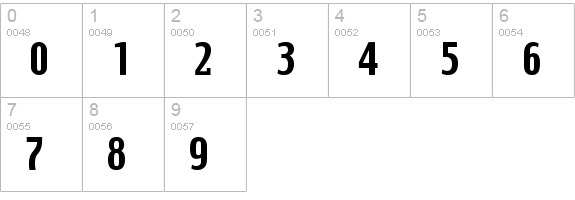
Techno font is a cutting-edge typeface that perfectly captures the essence of modern technology and futuristic aesthetics. With its sleek and geometric design, this font is guaranteed to make a bold statement in any project or design. The sharp edges and clean lines of Techno font create a sense of precision and innovation, making it an ideal choice for any tech-related branding, logos, or advertisements. One of the standout features of this font is its versatility. Whether you're working on a website, app interface, or even a print design, Techno font adapts seamlessly to any medium, ensuring a cohesive and professional look throughout. Its bold and attention-grabbing appearance is suitable for headlines, titles, and any text that needs to stand out. But what makes Techno font even more appealing is that it is available for free download at FontsMarket.com. This means that you can access and utilize this fantastic font without any cost or restrictions. This accessibility makes Techno font a valuable asset for designers, creatives, and anyone looking to add a touch of modernity to their projects. So, if you're searching for a font that embodies the sleekness and innovation of modern technology, Techno font is the perfect choice. With its striking design, versatility, and the fact that it is freely available to download at FontsMarket.com, this typeface is a must-have for anyone looking to make a bold and captivating statement.